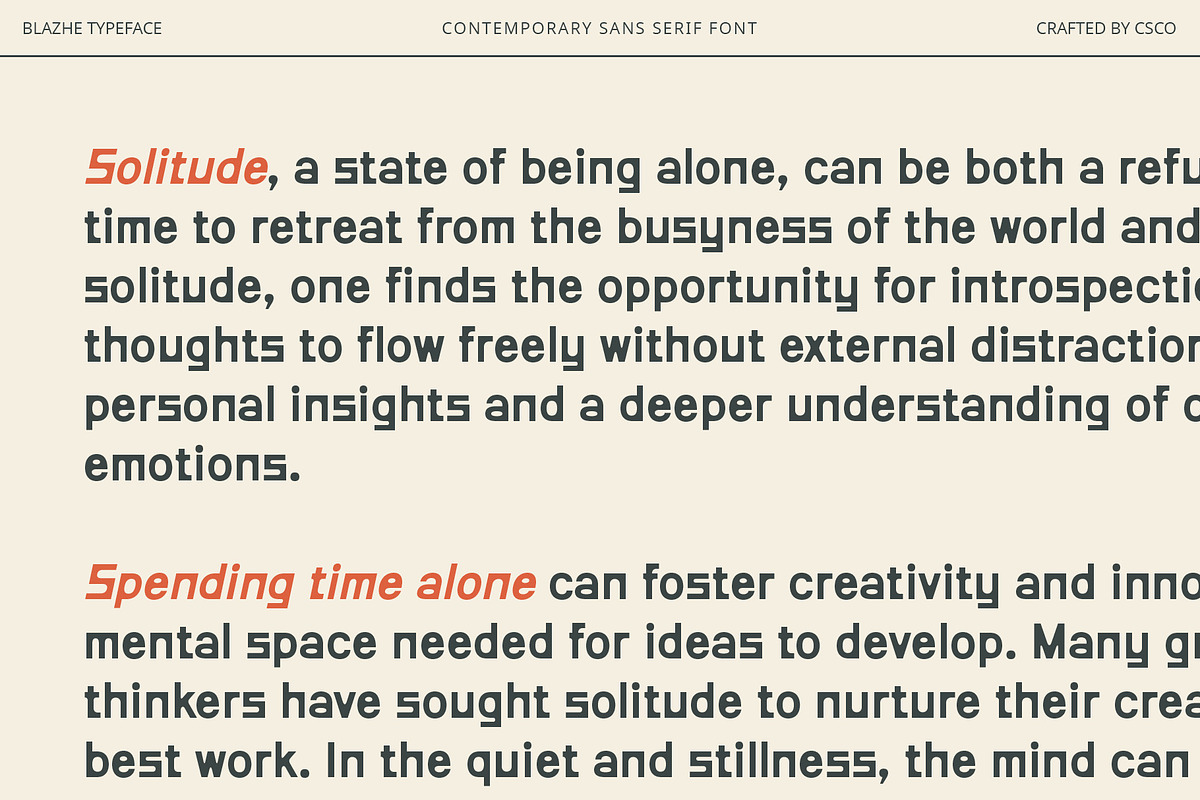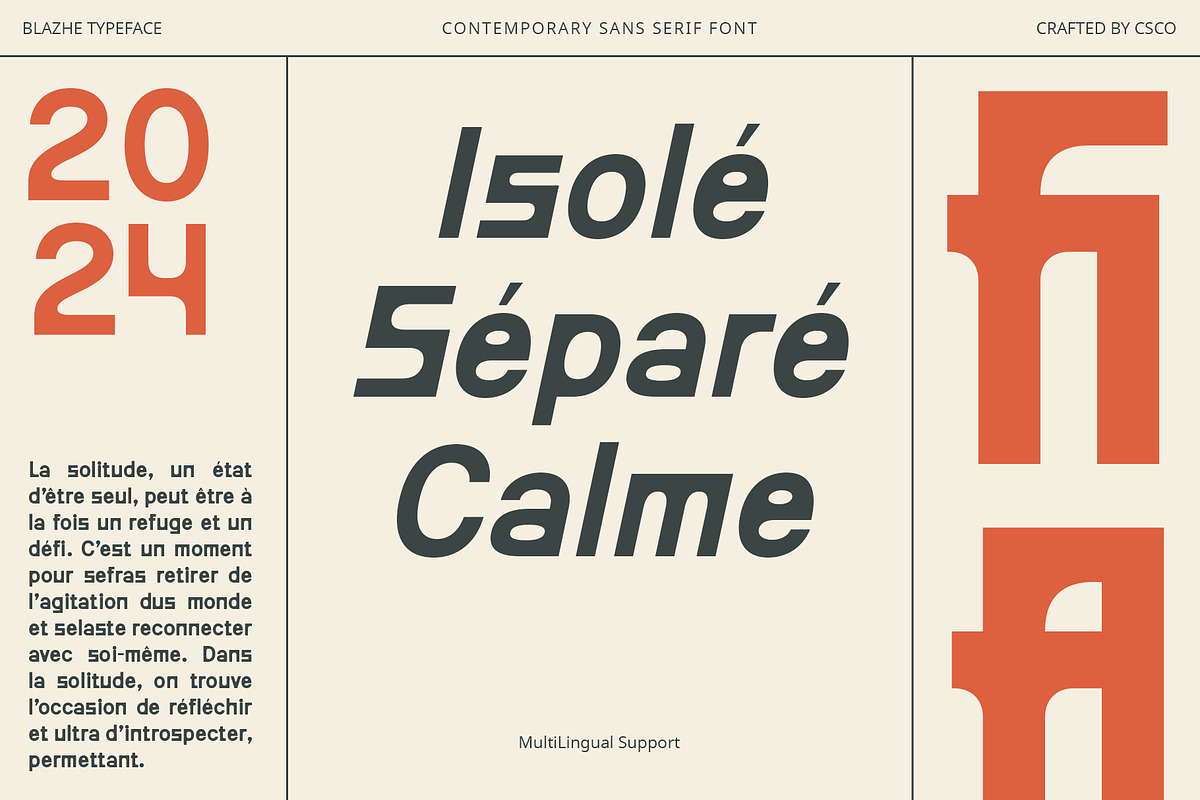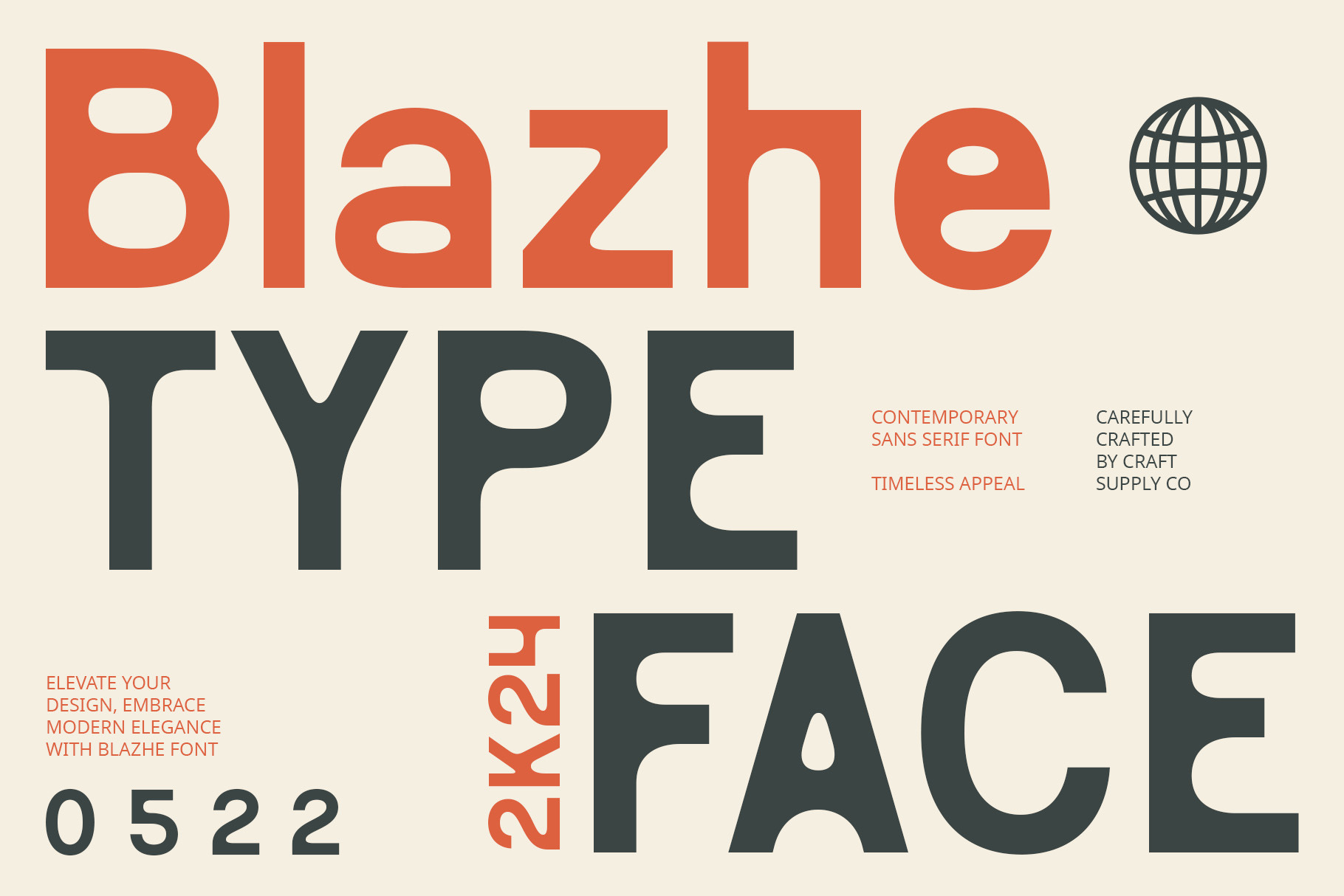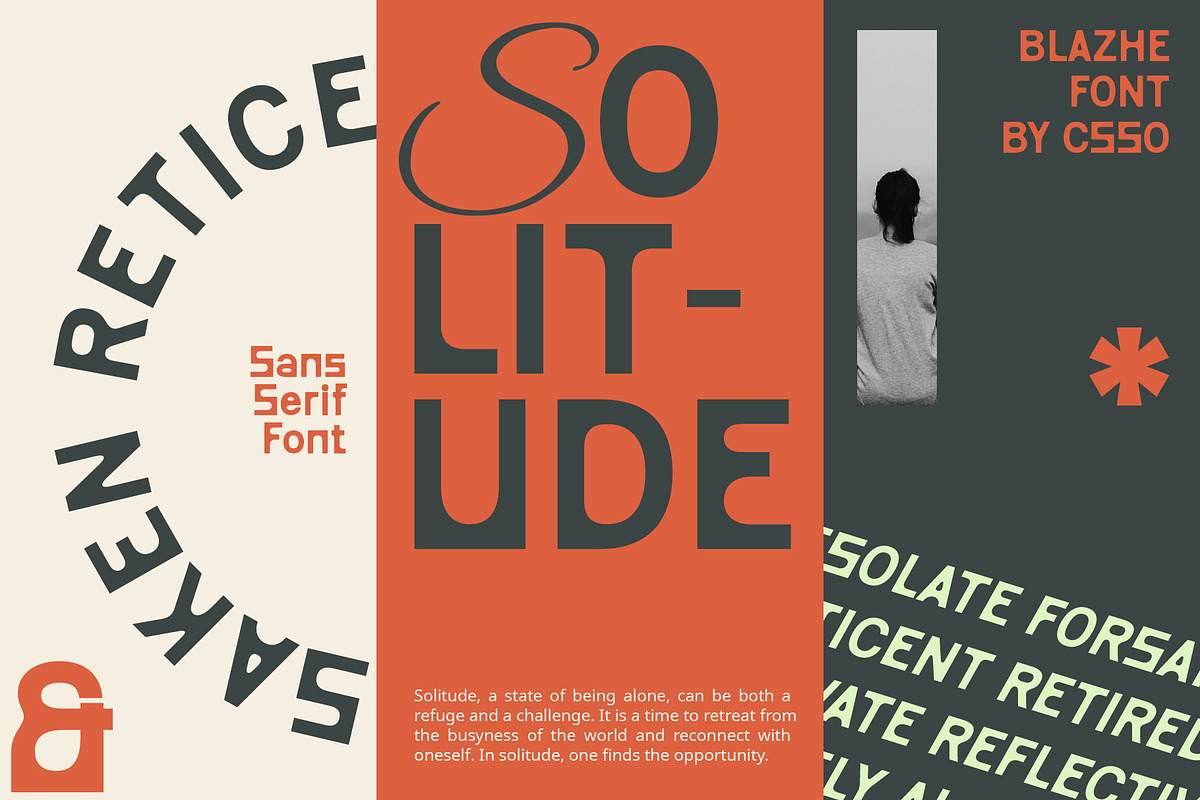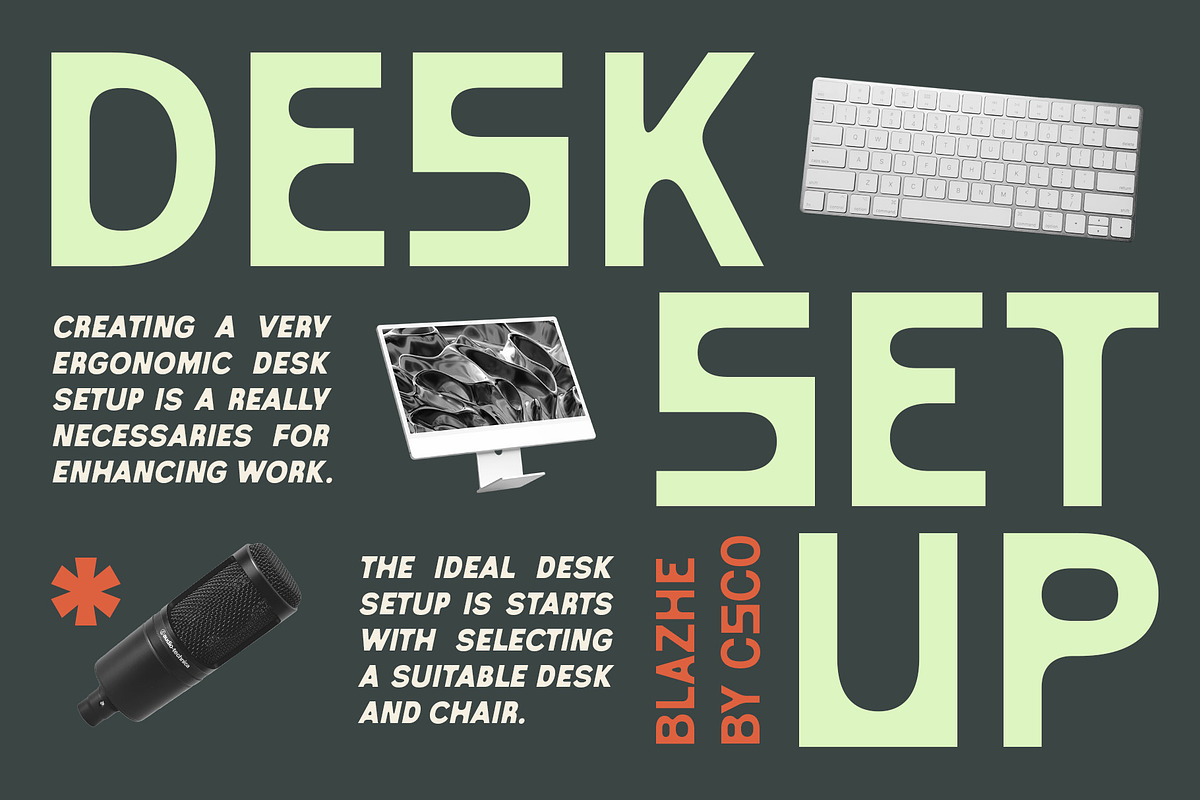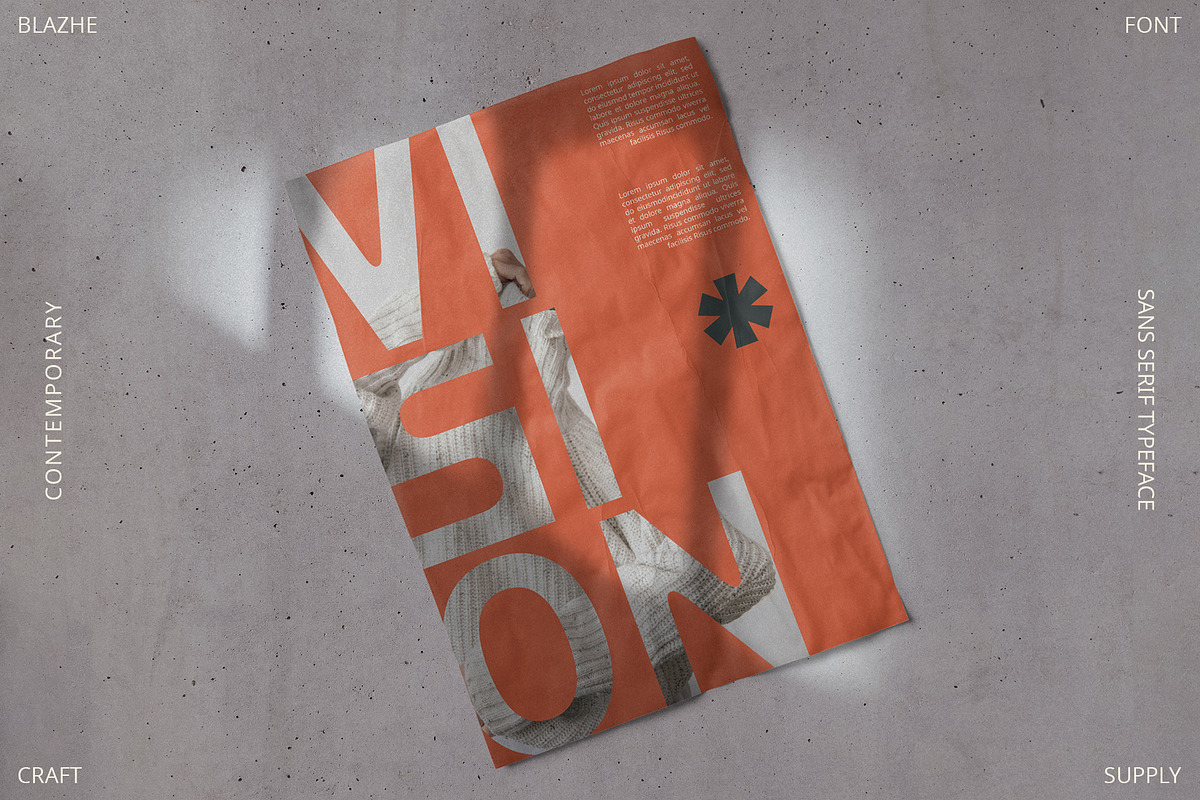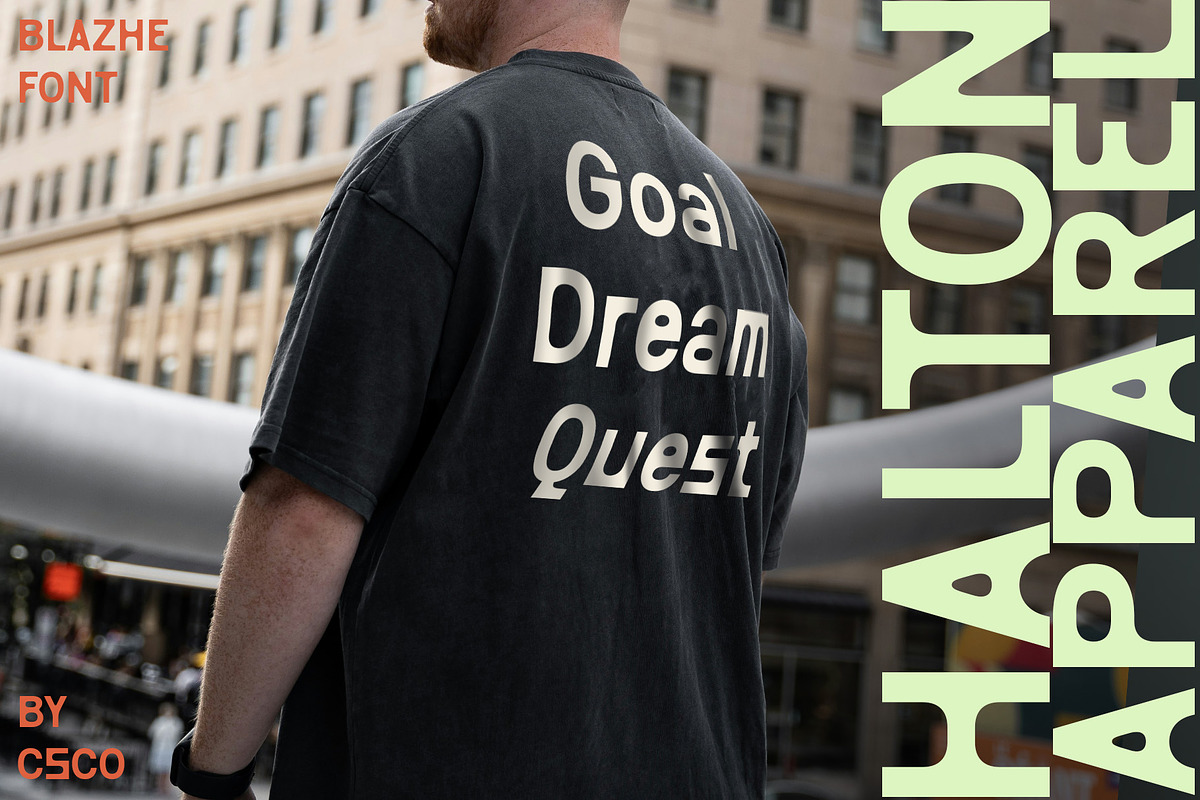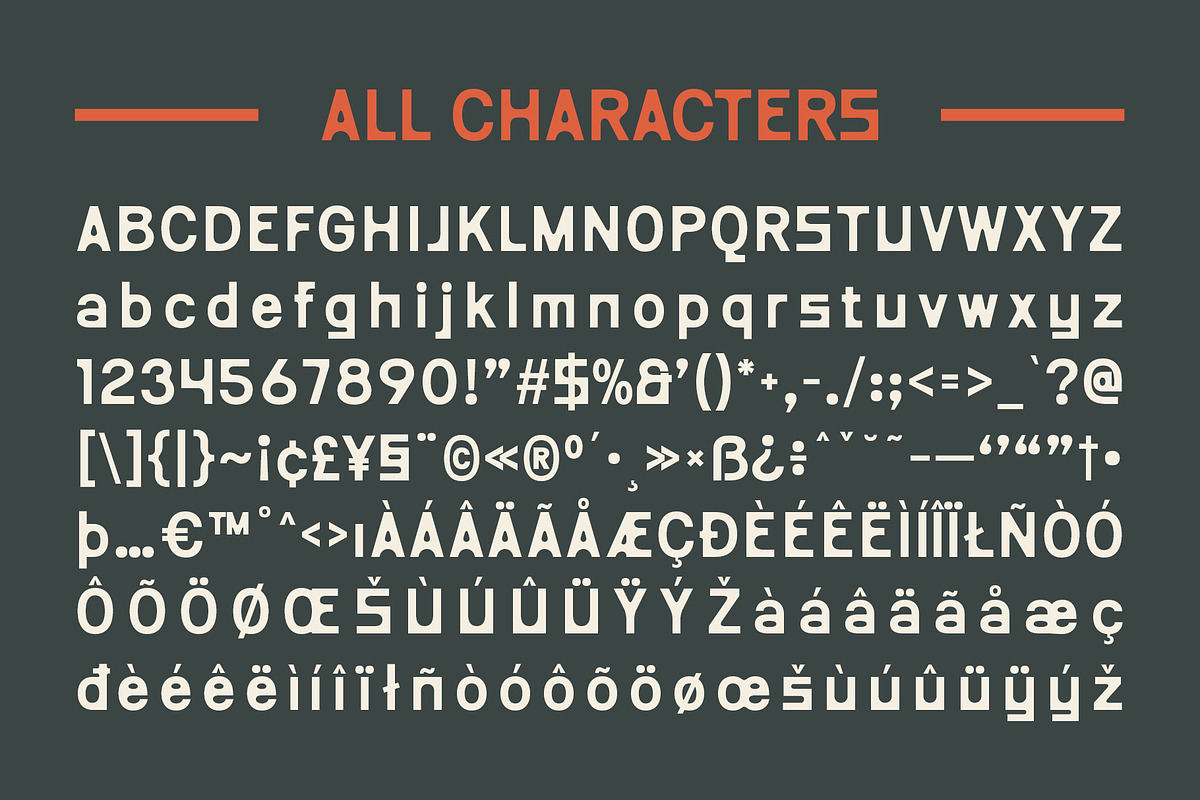
Blazhe – Contemporary Font
Blazhe: Where Modernity Meets Professionalism
Contemporary Corporate Sans
Blazhe is a modern sans serif font that conveys a contemporary feel in each design, perfect for corporate use. Its clean lines and sleek style make it ideal for a wide range of professional projects.
Modern Sans Serif with Contemporary Feel
With its sharp lines and modern design, Blazhe offers a fresh take on traditional sans serif fonts. The contemporary style creates a sophisticated and professional look, perfect for corporate communications, branding, and more.
Perfect for Corporate Use
Whether you’re designing a business report or creating a company logo, Blazhe is sure to make an impression. Its modern style and professional appeal make it versatile and suitable for a variety of corporate applications.
Versatile and Easy to Use
Despite its distinctive appearance, Blazhe is versatile and easy to use. The font works well in both large and small sizes, making it suitable for a variety of applications, from headlines and banners to body text and more. With its blend of modern design and contemporary feel, Blazhe adds a touch of professionalism to any project.